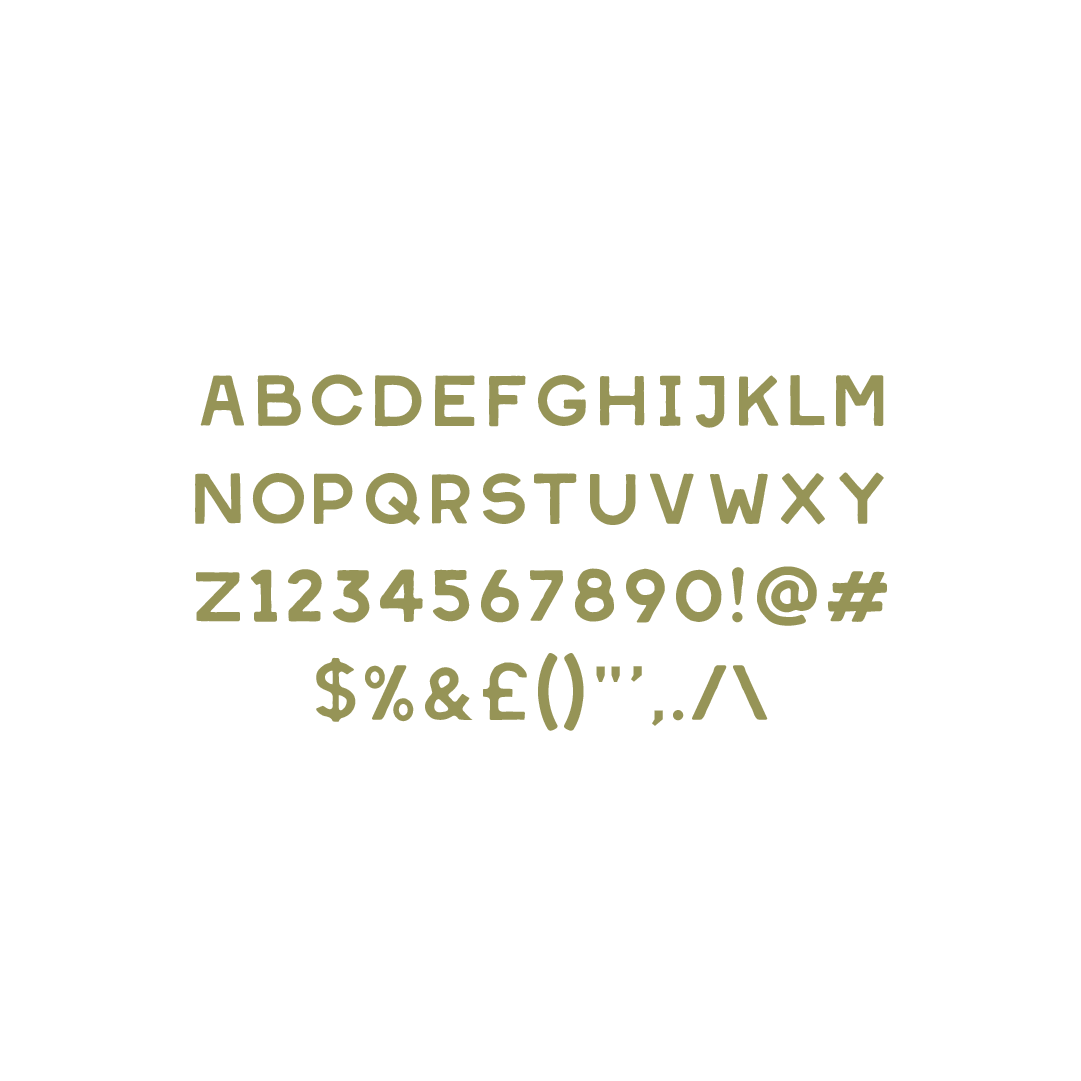
Bold, quirky, and full of personality, Kimchi is perfect for adding a kick to menu designs, branding, posters, and anything that needs a little extra spice. Just like its namesake, this font brings flavor and fun to the table—whether you're cooking up a fresh design or giving your project some zest. Handdrawn by me and brought to life by you!Go ahead, turn up the heat! 🌶️